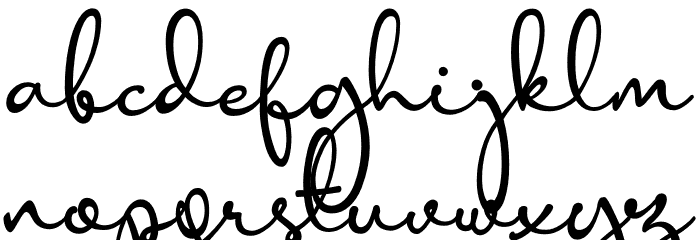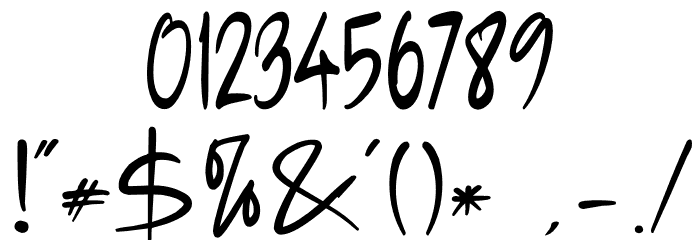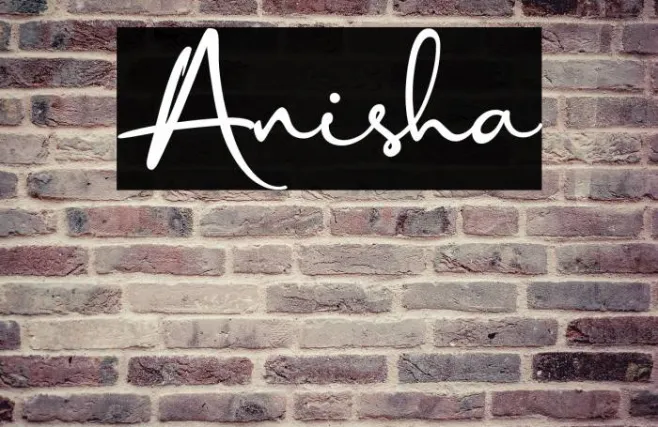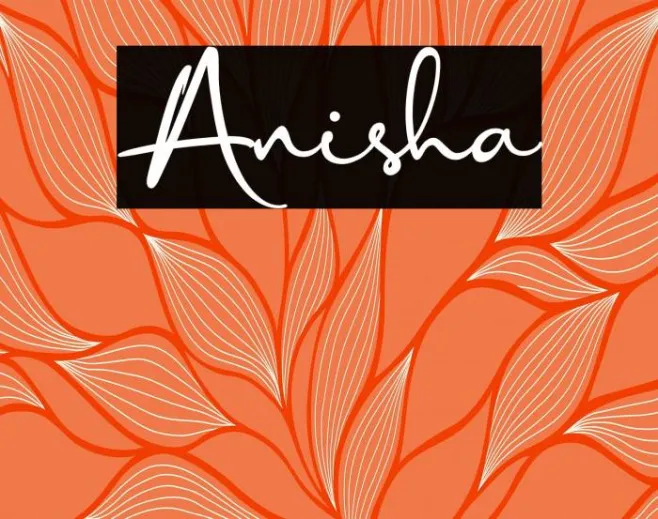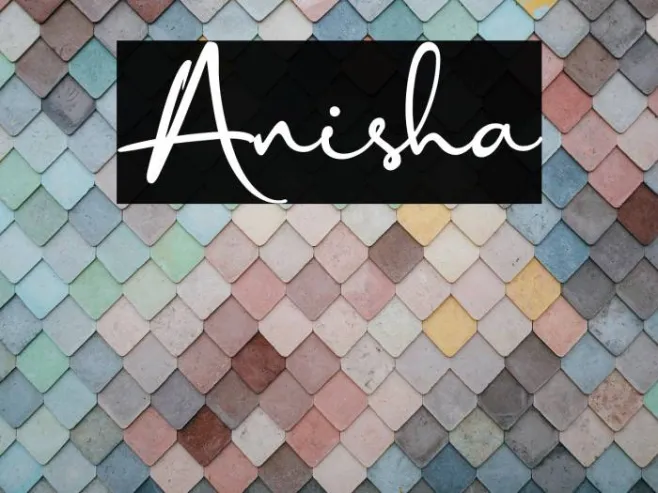
Anisha Font
This font features a lively and dynamic script style with a handwritten appearance. The uppercase letters are bold and expressive, with sweeping curves and loops that give a sense of movement and flair. The lowercase letters maintain a consistent flow, with some letters connecting seamlessly to others, enhancing the cursive feel. Numbers are clear and distinct, matching the playful yet elegant style of the alphabet. Special characters are creatively designed, maintaining the overall aesthetic of the font. The strokes are smooth and fluid, with a medium contrast between thick and thin lines, adding to the font's legibility and charm.
A lively, handwritten script font with expressive curves and fluid strokes.
- Proposed Projects: Ideal for wedding invitations, greeting cards, personal branding, and creative projects that require a personal touch.
- Use Case: Logos, Invitations, Personal Branding